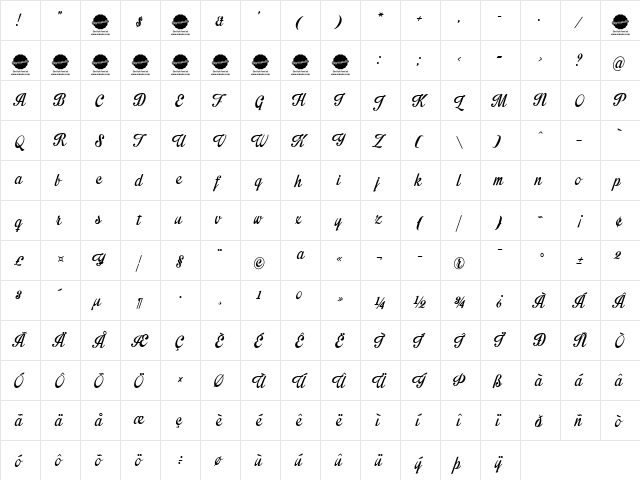
Impregnable Personal Use Only Regular
| Foundry | M害 Greb䣫 |
| Designer | M害 Greb䣫 |
Design Context for Impregnable Personal Use Only Typeface
Impregnable Personal Use Only takes a measured approach to typography — its balanced proportions and neutral character make it a reliable workhorse for both digital and print work.